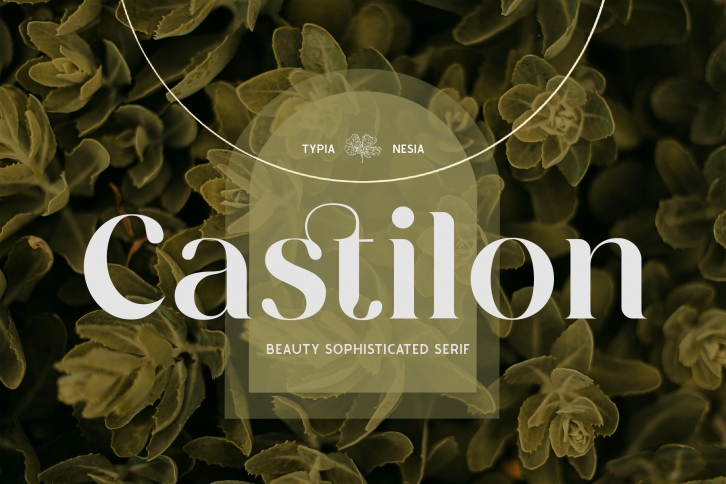
Castilon is an authentic and bold serif font. It maintains its classy calligraphic influences while feeling contemporary and fresh. Fall in love with it and bring your projects to the highest levels!